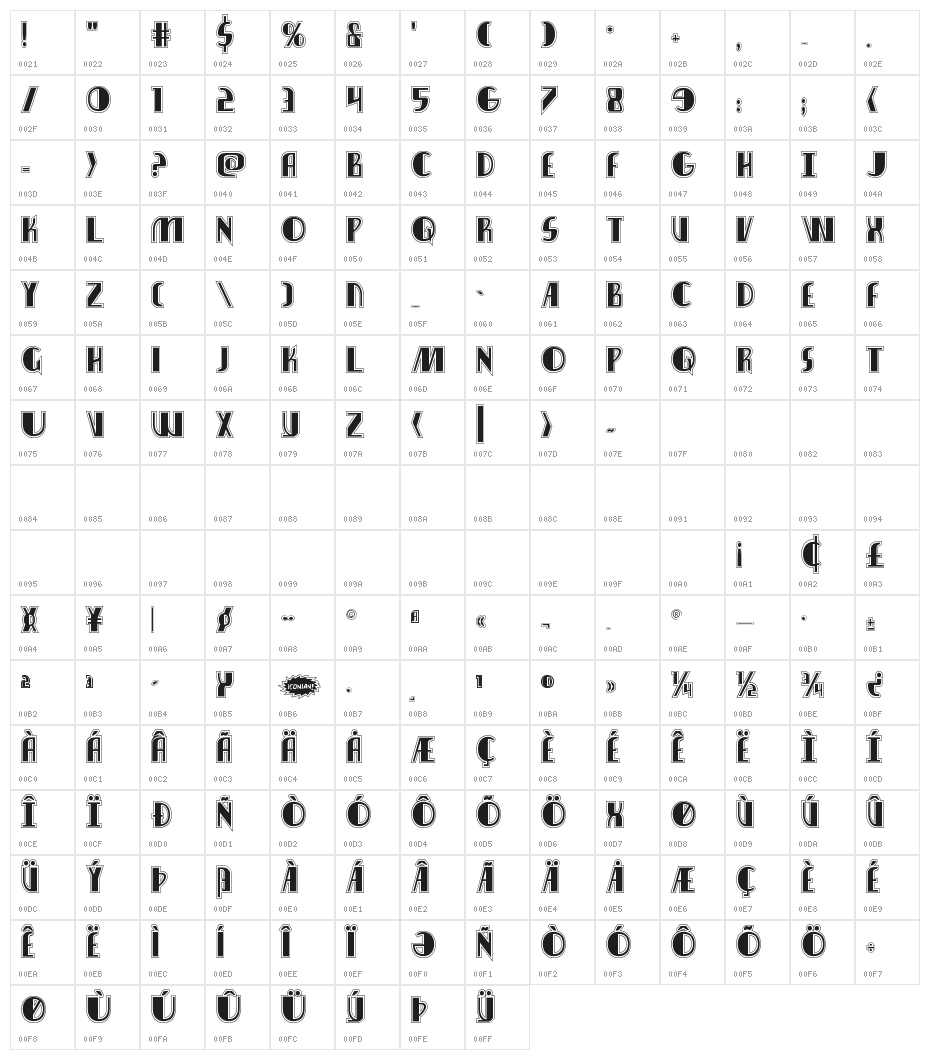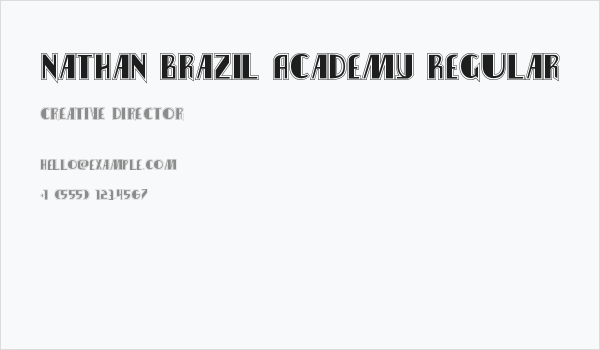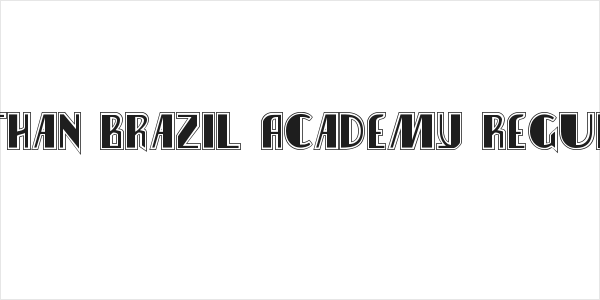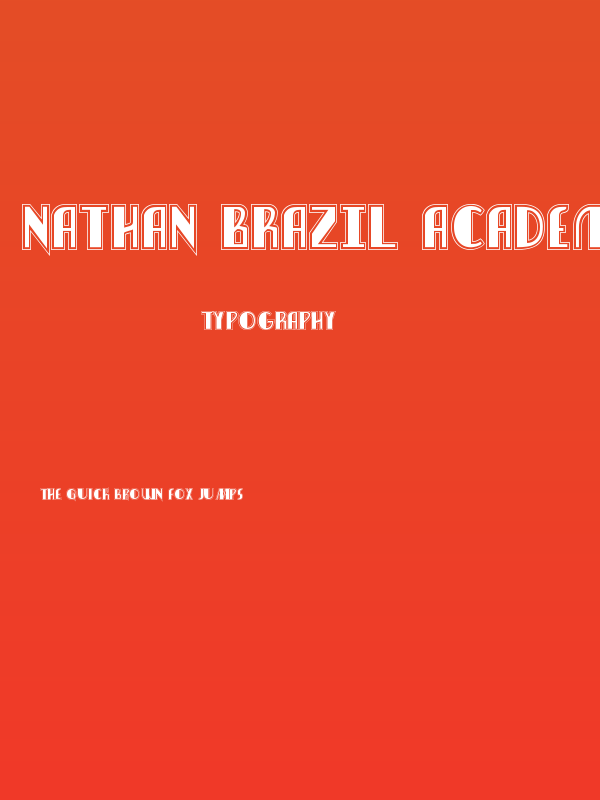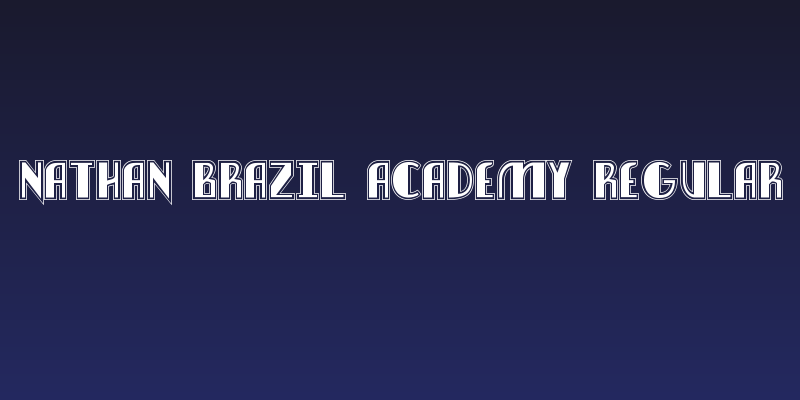
Nathan Brazil Academy Regular Font
Nathan Brazil Academy Regular Description
This font features a bold, geometric design with a strong emphasis on angular lines and sharp edges. The characters are outlined, creating a striking contrast between the filled and unfilled spaces. The uppercase and lowercase letters maintain a consistent style, with a modern and dynamic appearance. The numbers and special characters follow the same bold and outlined aesthetic, making them highly legible and visually impactful. This font is ideal for projects that require a strong visual presence and a contemporary feel.